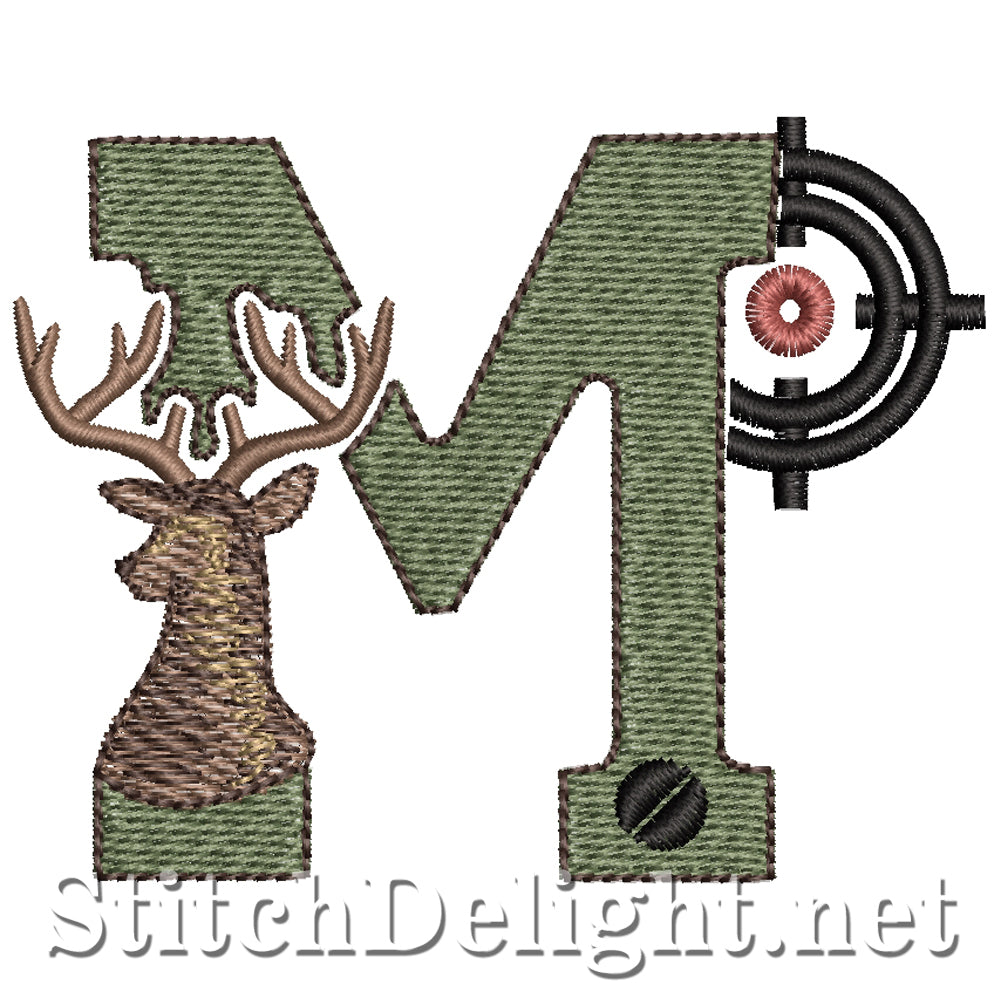
SDS1752 Hunters Font M
This is a must have font for Hunting enthusiasts. With an average height of 3" this single letter is perfect for stitching onto rifle storage bags.